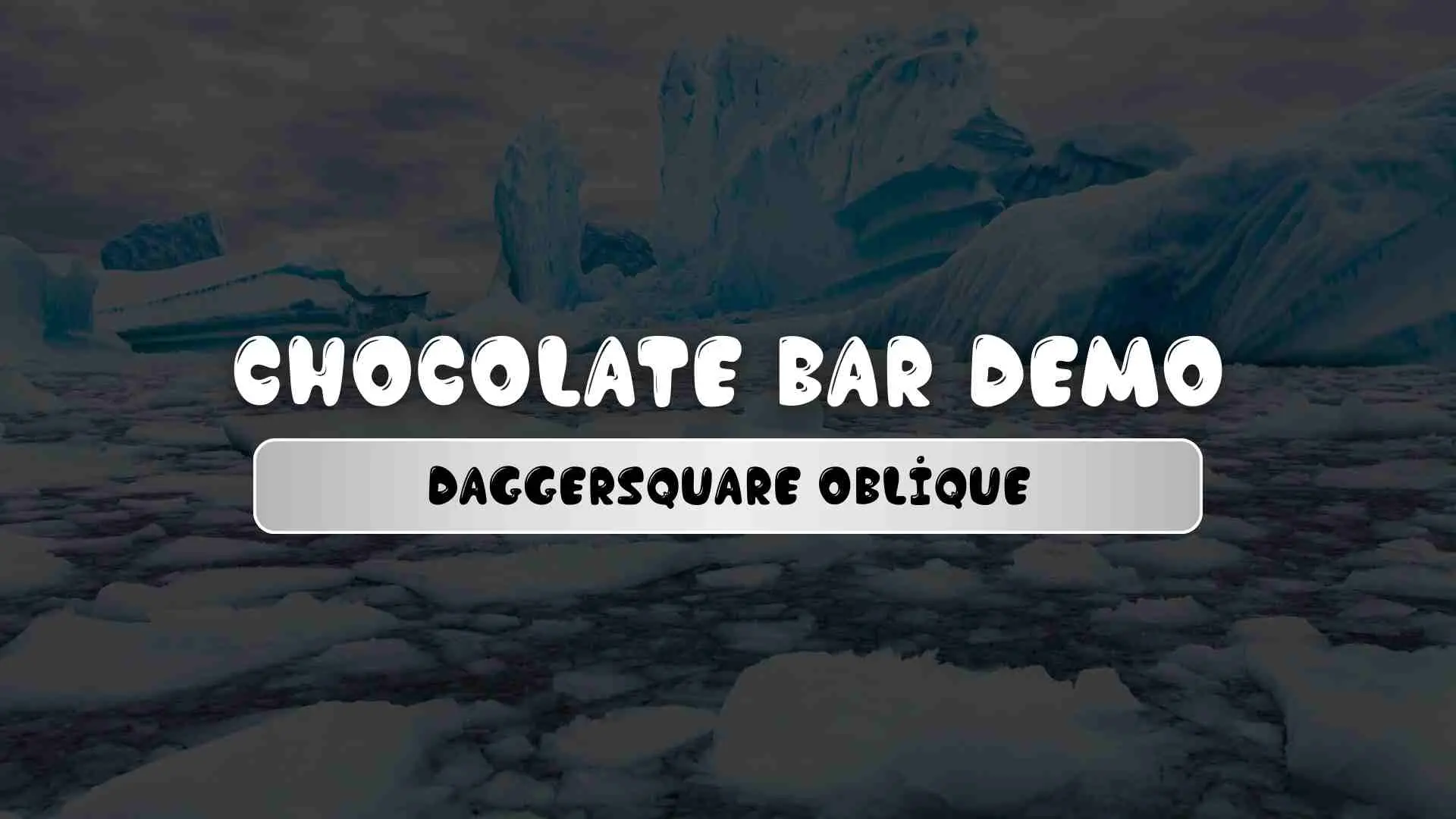
The font Chocolate Bar Demo, designed by Mehmet Abacı, falls under the Display category & Chocolate Bar font family. Its smooth, flowing letterforms make it a versatile choice for projects that require both elegance and readability. Chocolate Bar is particularly well-suited for Logo, Event Posters, Logos, Display and Children's Books. With its balance of simplicity and decorative appeal, this font brings a polished touch to both personal and professional designs.